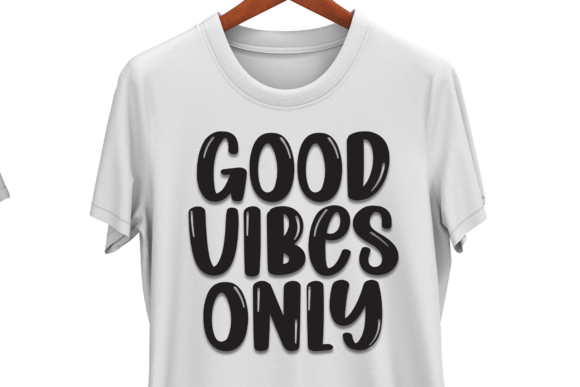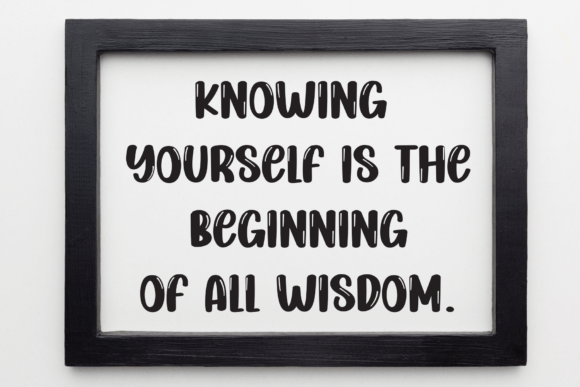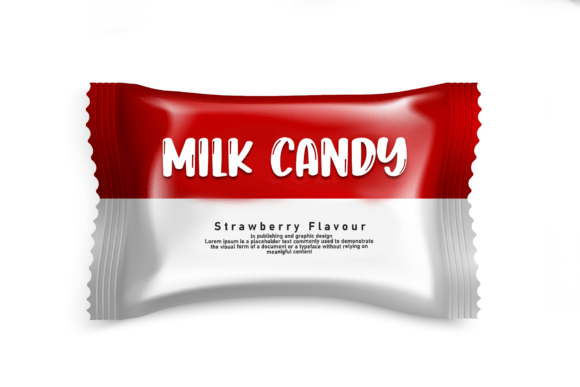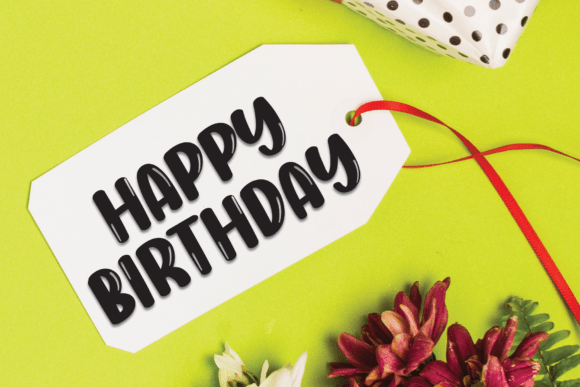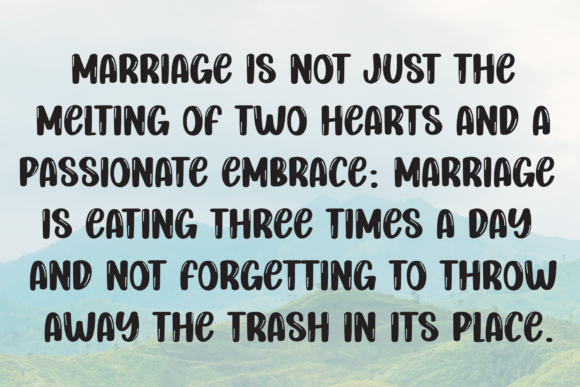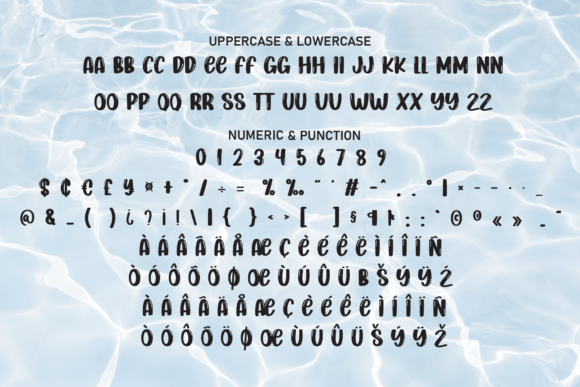
Introduction to Simple Water Font Font
Fonts play a crucial role in design, and the Simple Water Font font is a typeface that brings both character and versatility to any project. Whether you’re working on a branding project, a website, or a print design, the Simple Water Font font offers a unique style that can elevate your work.
This playful font bursts with fun and creativity.
With bouncy letterforms and a hand-drawn charm, itβs perfect for kids’ projects, party invites, logos, packaging, and anything that calls for a lighthearted and cheerful vibe Let your designs radiate joy and imagination.
Key Features of Simple Water Font Font
Why Choose Simple Water Font Font?
The Simple Water Font font is more than just a typeface β it’s a design tool that helps you communicate your message with style and clarity. Its unique character set and versatile design make it suitable for a wide range of applications, from elegant invitations to bold headlines.
With its carefully crafted letterforms and balanced proportions, the Simple Water Font font ensures readability and visual appeal across all mediums.
What makes Simple Water Font font special?
The Simple Water Font font stands out with its unique design, exceptional readability, and versatility across various design applications.